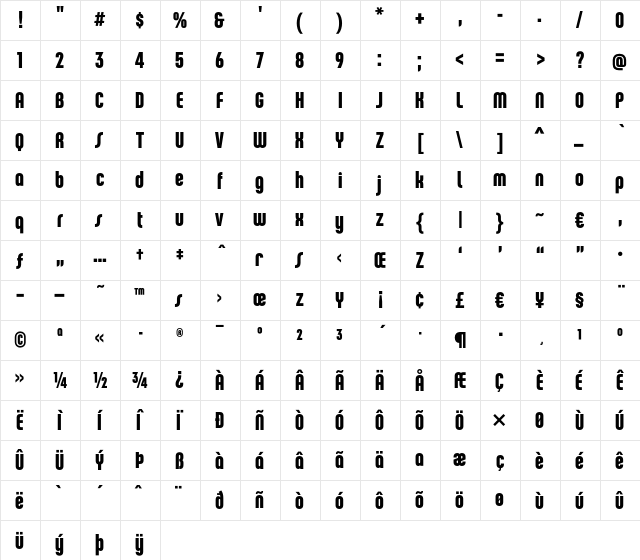
ChaletComprime-HongKongSeventy Regular
Design Context for ChaletComprime-HongKongSeventy Typeface
ChaletComprime-HongKongSeventy is a composed and adaptable typeface that performs quietly and consistently across a wide range of design contexts.
Pro Tip: Use ChaletComprime-HongKongSeventy in both headline and body roles to test its range before committing to a single application.